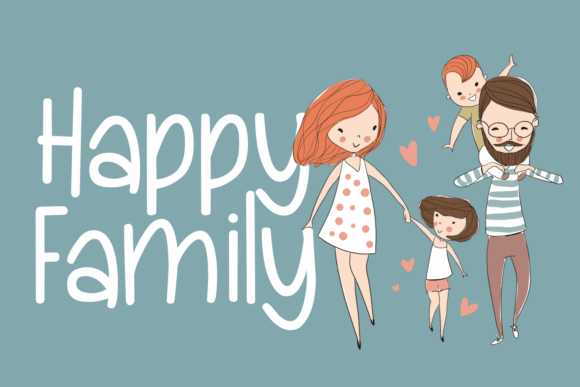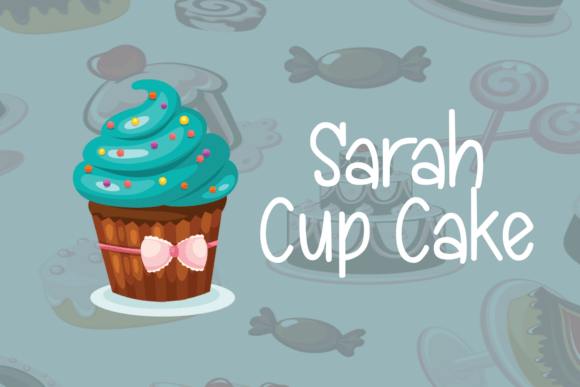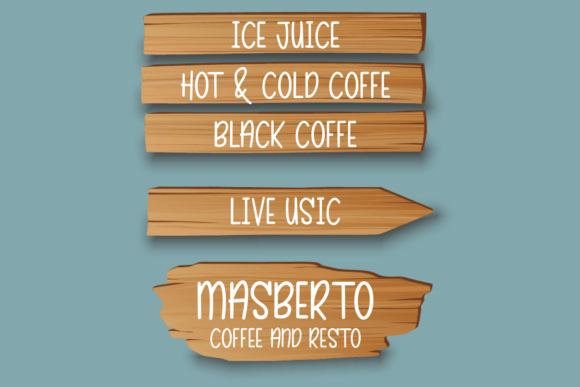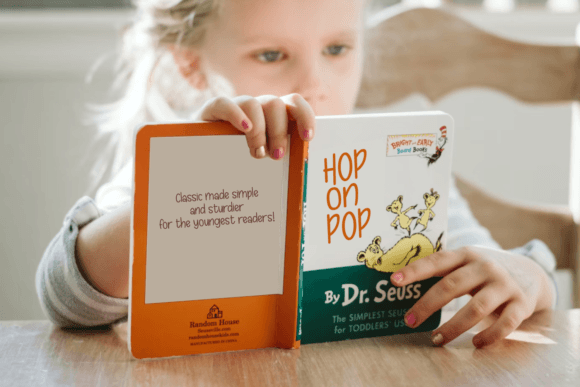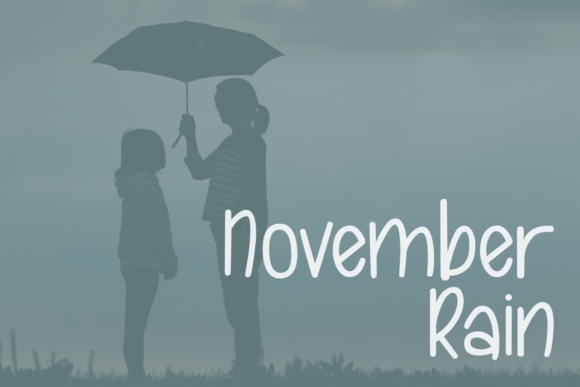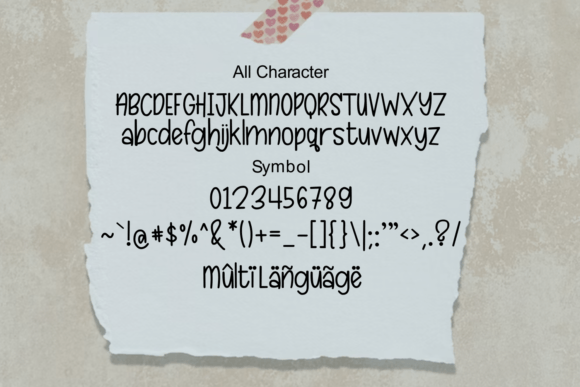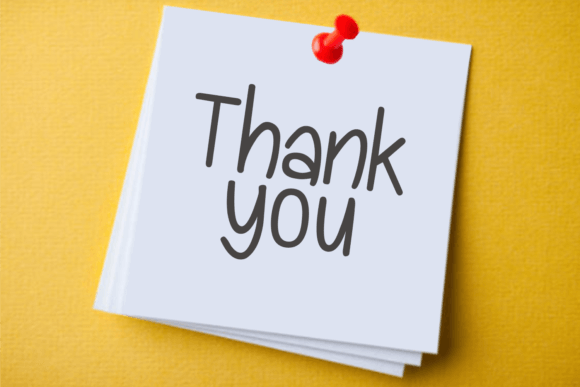
Quethy Font
The Quethy Font download is a playful handwritten typeface that brings a touch of elegance and fun to your creative projects. Designed with simplicity in mind, it was originally handwritten with a pen, giving it a natural and authentic look. Whether for professional use or personal projects, Quethy provides a versatile option that feels timeless yet modern.
A Playful and Elegant Style
One of the standout qualities of the Quethy Font download is its unique balance of playfulness and elegance. While its simple handwritten strokes feel casual and approachable, the overall style remains refined. This makes it suitable for everything from cheerful greeting cards to stylish posters and branding elements.
Perfect for Posters and Titles
The Quethy Font download is highly effective when used in large-scale designs like posters and headlines. Its friendly shapes capture attention instantly, while the elegant details add personality. Designers who want their titles to stand out without overwhelming the rest of the layout will find Quethy an excellent choice.
Thanks to its adaptability, the Quethy Font download works seamlessly across different creative fields. It looks equally charming on product packaging, invitations, labels, and digital content. For DIY enthusiasts, this font is a reliable tool for scrapbooking, planners, and craft designs that need a personal handwritten touch.
Readability with Authentic Charm
Handwritten fonts sometimes sacrifice readability, but Quethy avoids this pitfall. The Quethy Font download maintains smooth and clear letterforms, ensuring legibility across all sizes. Whether you’re using it for small text or bold headlines, the font’s clarity ensures your message comes through beautifully.
Why Choose Quethy Font?
Among the many handwritten fonts available, the Quethy Font download distinguishes itself with its simple yet elegant design. It adapts effortlessly to both casual and professional projects, making it a go-to option for creative designers. Choosing Quethy means combining authenticity with elegance in every design.
Add Playfulness to Your Designs
Typography is more than just words—it shapes how your audience feels. The Quethy Font download allows you to inject playfulness and style into your projects, ensuring that your work stands out. Whether for posters, invitations, or packaging, Quethy helps you deliver designs full of charm and creativity.